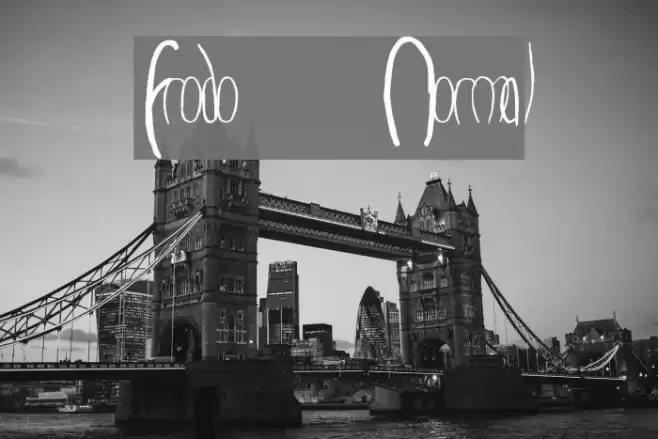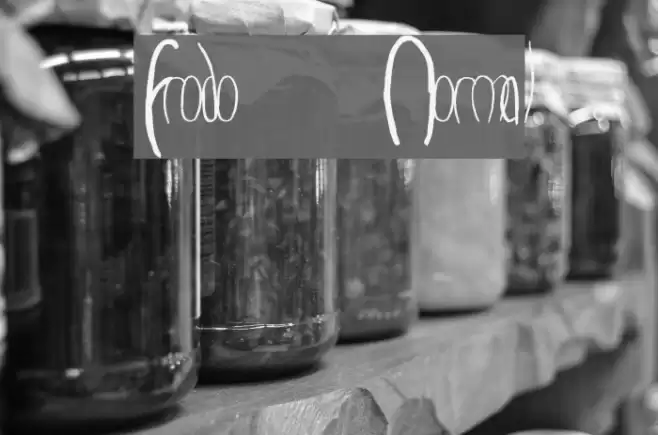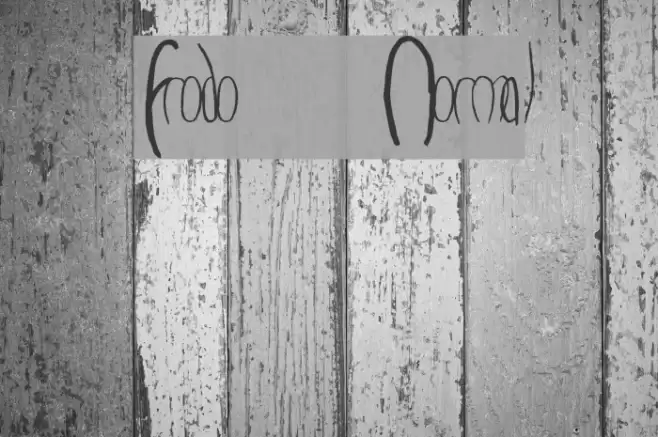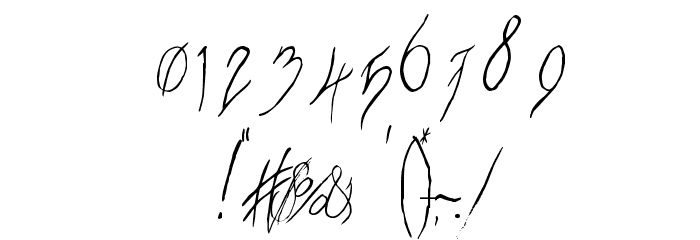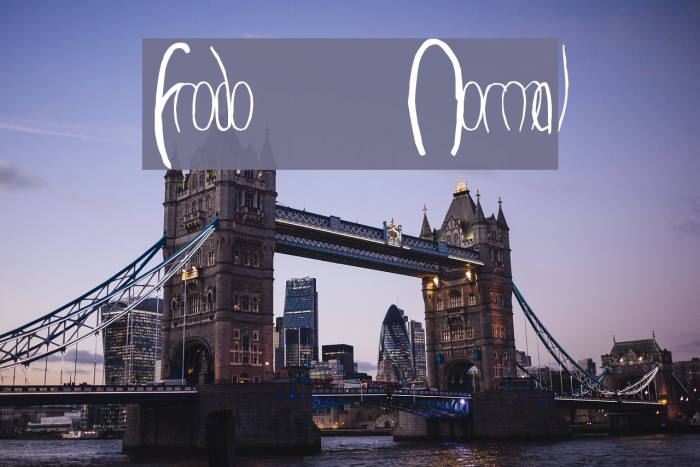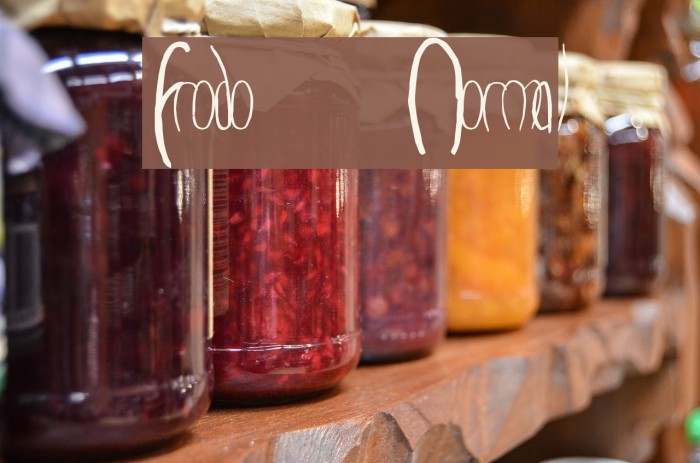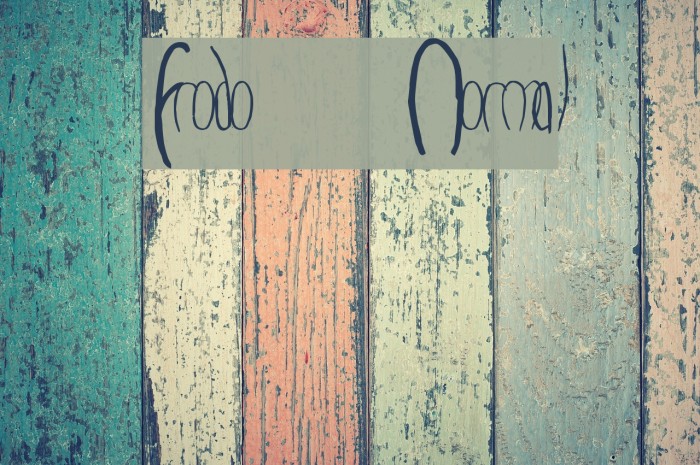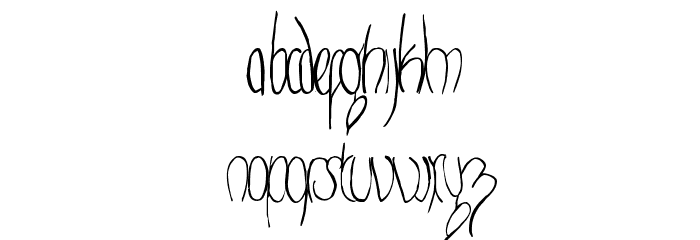
Frodo Normal Font
Frodo Normal Description
This font features an intricate, flowing design that evokes a sense of fantasy and elegance. The characters are elongated and have a whimsical, almost calligraphic style, with unique curves and flourishes that give it a distinct personality. The uppercase letters are bold and dramatic, while the lowercase letters maintain a delicate and airy appearance. Numbers and special characters follow the same artistic theme, making the font suitable for creative and decorative purposes. Its overall appearance is both artistic and expressive, perfect for projects that require a touch of fantasy or a medieval aesthetic.
A whimsical, calligraphic font with elongated, flowing characters from Uncategorized fonts.
- Proposed Projects: Ideal for fantasy-themed projects, book covers, invitations, and decorative posters.
- Overall Style: Fantasy, Decorative
- Use Case: Headlines, Logos, Decorative text